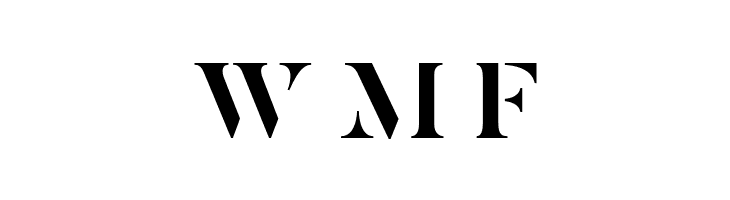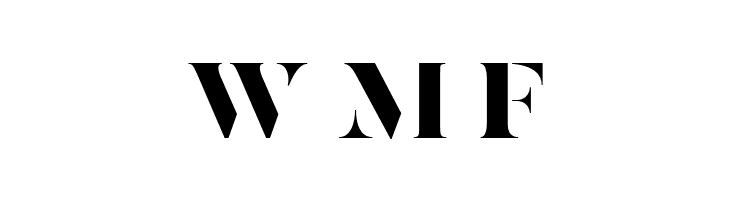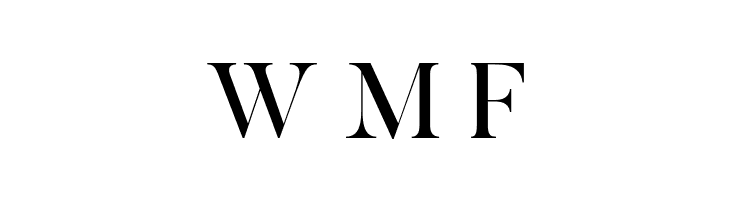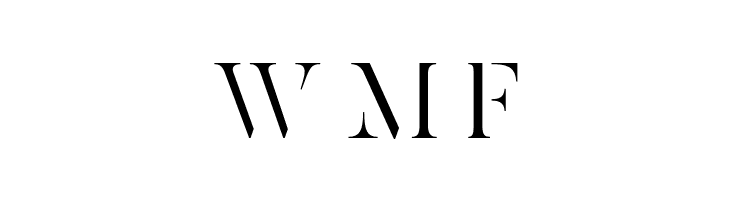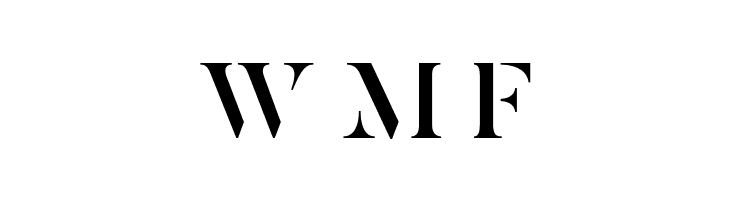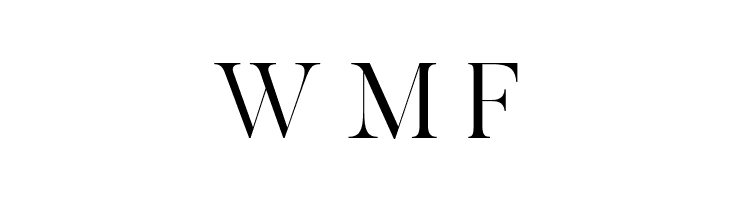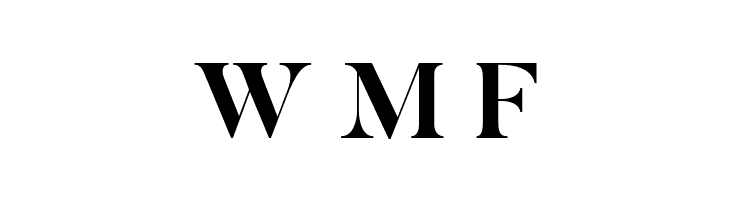
A bold stencil font with high contrast and geometric shapes.
A bold stencil font with high contrast and modern appeal.
A modern serif font with elegant curves and a classic yet contemporary style.
A modern serif font with stencil-like cuts, combining elegance with contemporary style.
A modern, stencil-inspired font with high contrast and elegant design.
A refined stencil serif font with ultra-light strokes and modern elegance.
A bold, high-contrast serif font with a modern and elegant style.
A modern serif font with a bold stencil effect, offering elegance and sophistication.
A refined serif font with modern elegance and balanced proportions.
A bold serif font with high contrast and elegant design.